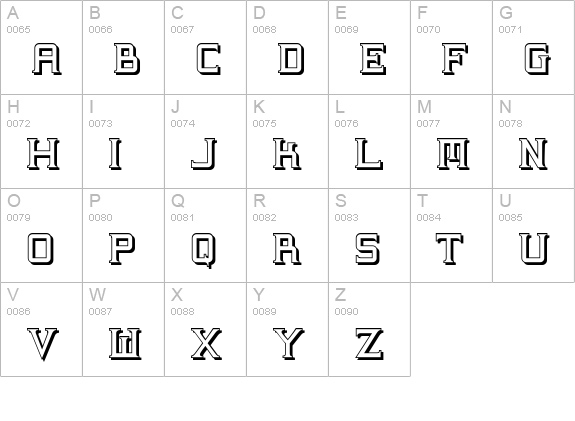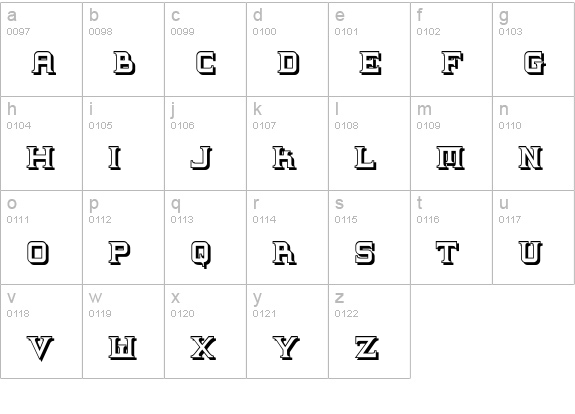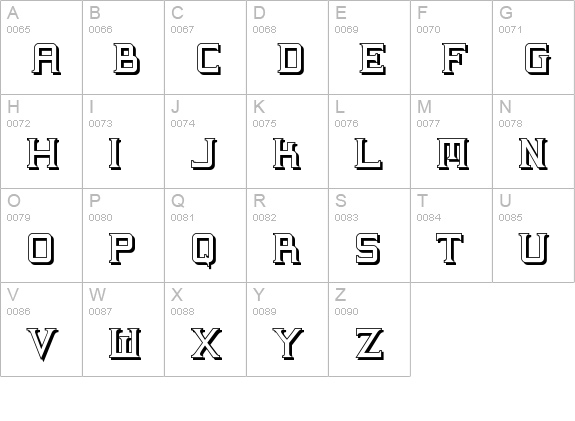
Supremaganda BTN Shadow Font Details
Supremaganda BTN Shadow font is a stunning display typeface that exudes elegance and sophistication. Its bold and impactful design makes it perfect for creating eye-catching headlines, logos, posters, and more. The sharp, shadowed edges give it a modern and edgy look that commands attention. What makes Supremaganda BTN Shadow font even more appealing is that it is available for free download at FontsMarket.com. This means that you can easily access this high-quality font for all your design needs without any cost. Whether you're a professional designer or a casual hobbyist, this font is a must-have in your collection. With its sleek and stylish appearance, Supremaganda BTN Shadow font is sure to elevate any design project to the next level. Download it today and unleash your creativity with this versatile and captivating typeface.